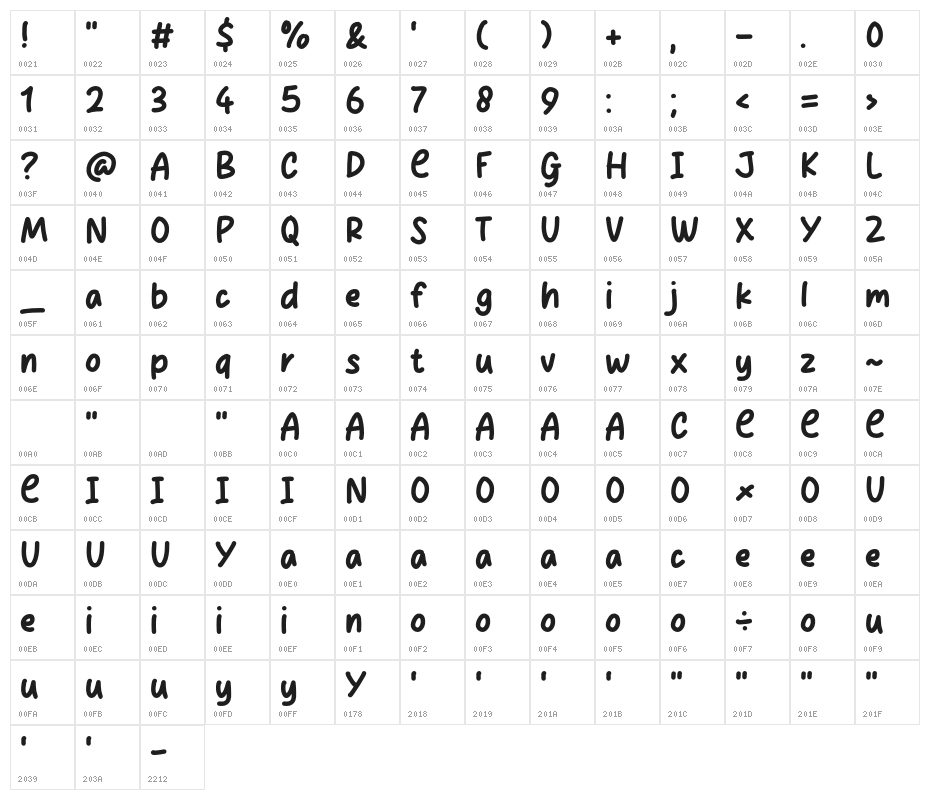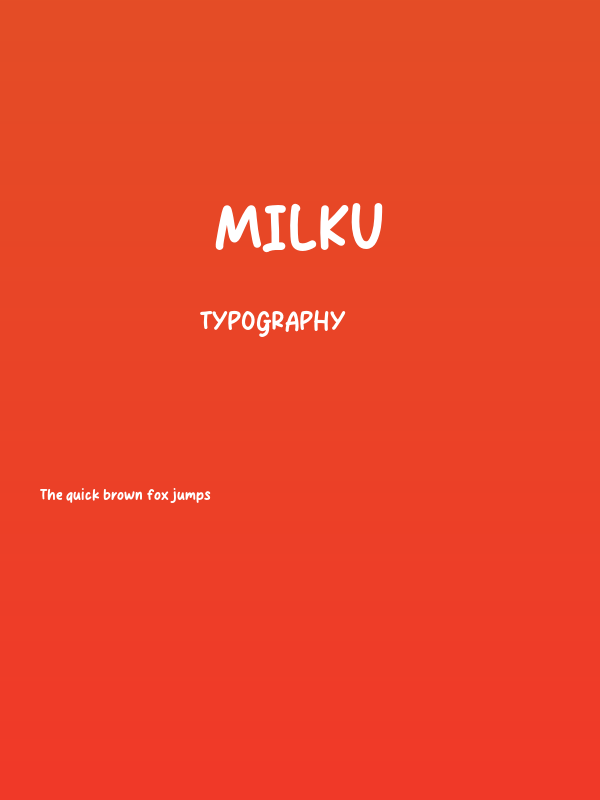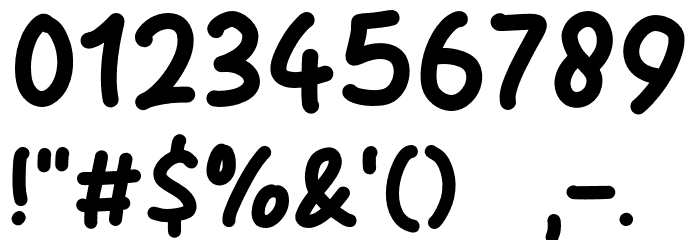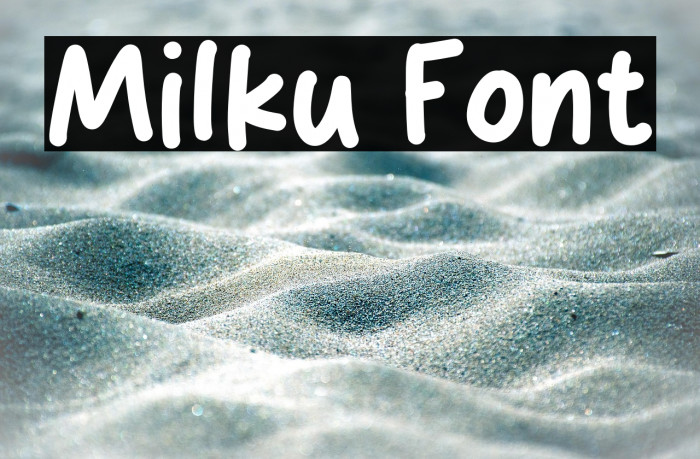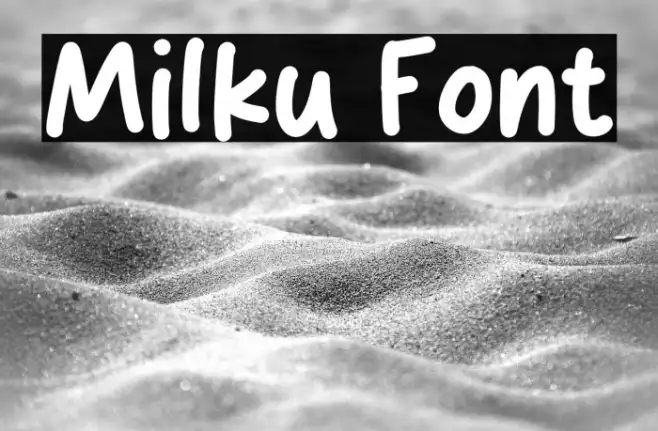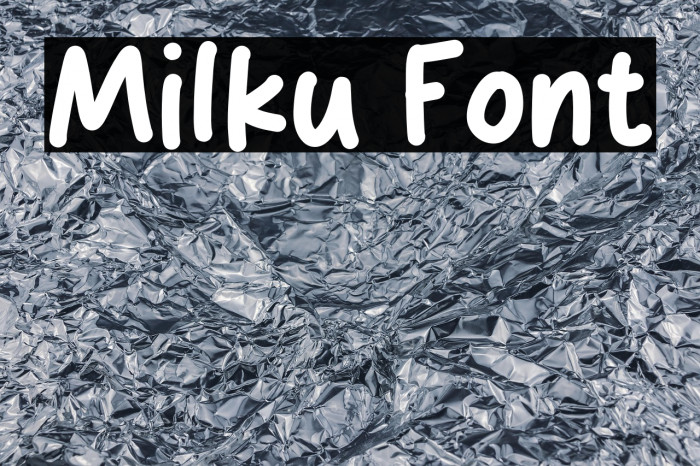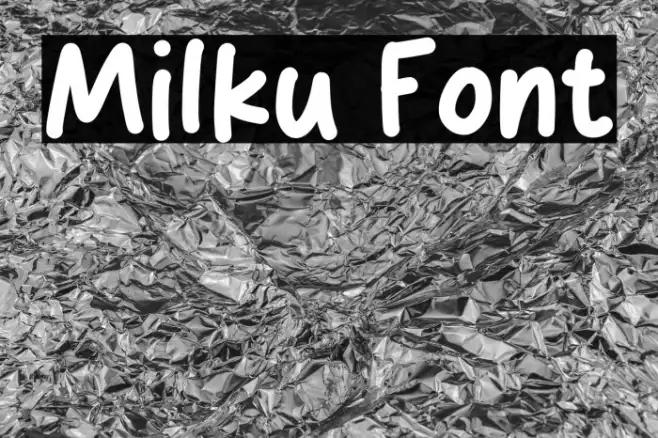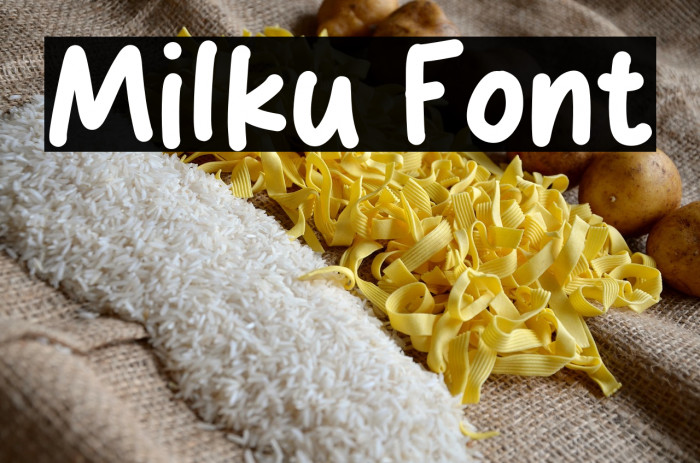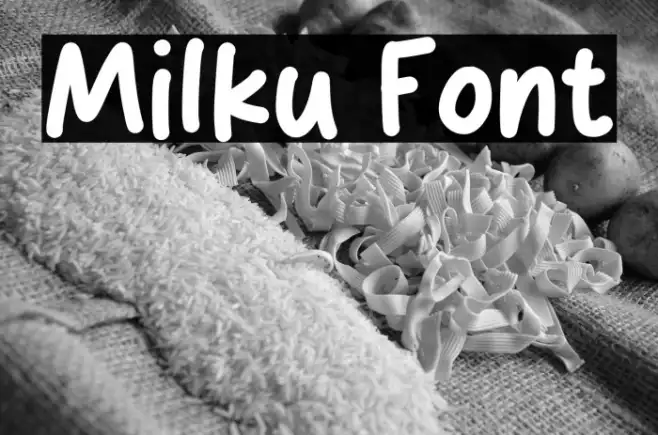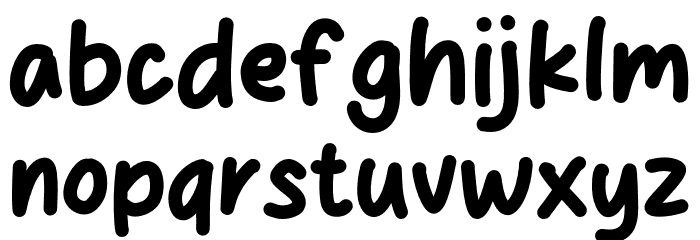
Milku Font
Milku Description
This font features a playful and informal handwritten style, characterized by its rounded and slightly irregular letterforms. The strokes are bold and consistent, giving it a friendly and approachable appearance. The uppercase and lowercase letters maintain a cohesive look, while the numbers and special characters are designed to match the overall style. The font's casual nature makes it suitable for projects that require a personal touch or a fun, relaxed vibe.